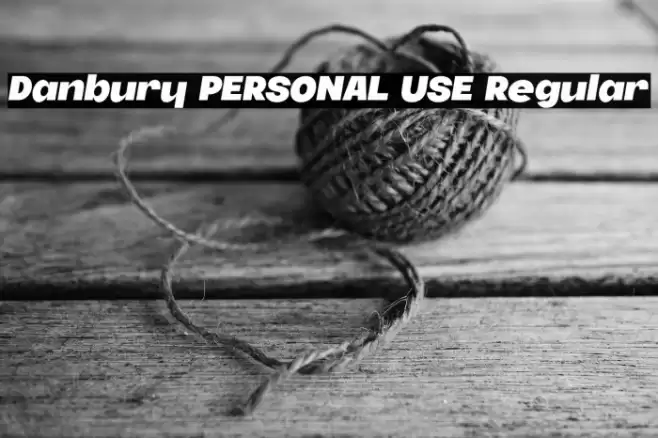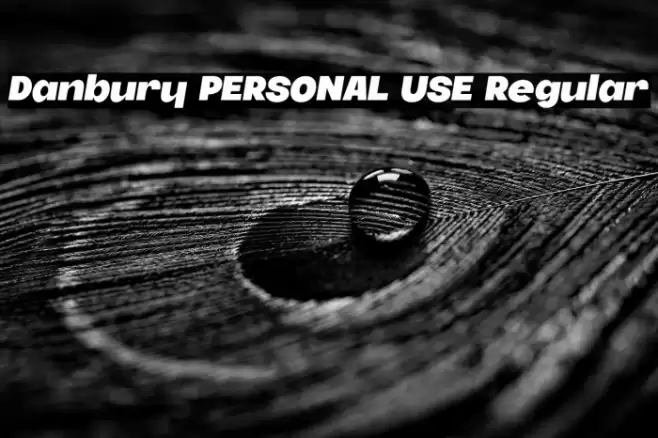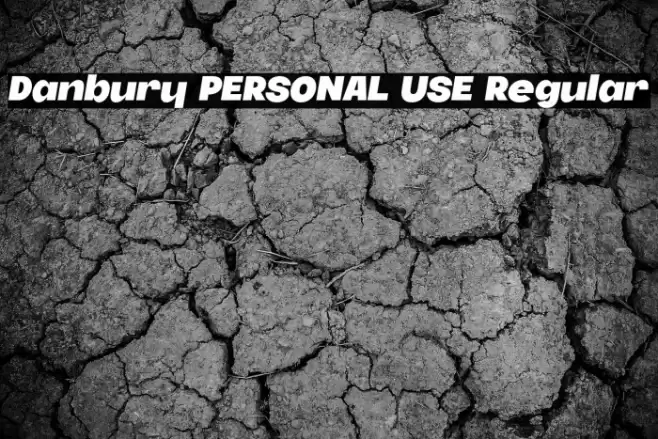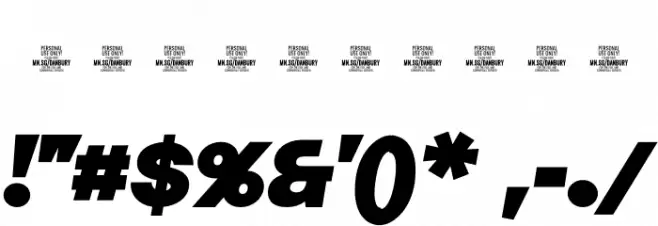
Danbury PERSONAL USE Regular Font
Danbury PERSONAL USE Regular Description
This font features bold, impactful characters with a strong presence. The uppercase and lowercase letters are designed with a slight slant, giving them a dynamic and modern appearance. The characters are thick and robust, making them highly legible and suitable for attention-grabbing designs. The numbers and special characters maintain the same boldness, ensuring consistency across all elements. The overall style is contemporary, with a touch of assertiveness that makes it ideal for headlines and branding projects.
Bold, slanted font with a modern, dynamic style from Regular fonts.
- Proposed Projects: Ideal for headlines, posters, branding, and advertising materials where a strong visual impact is needed.